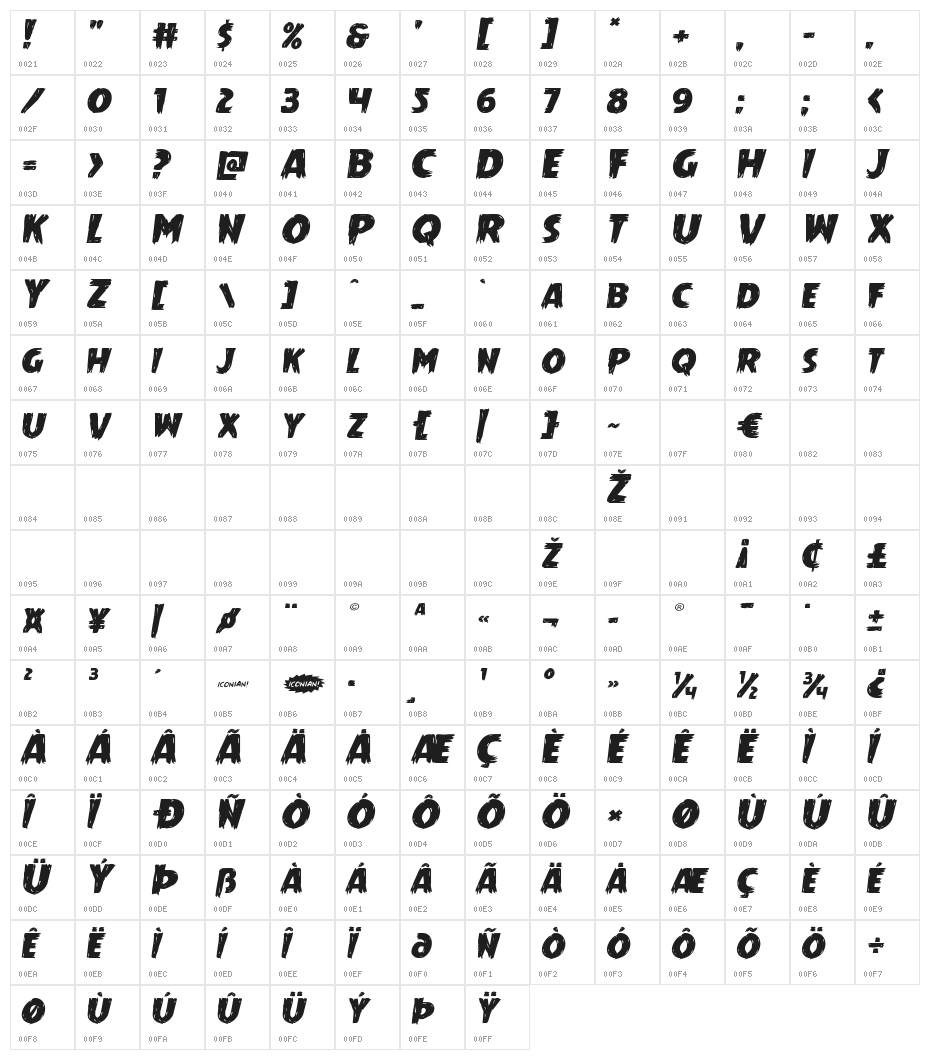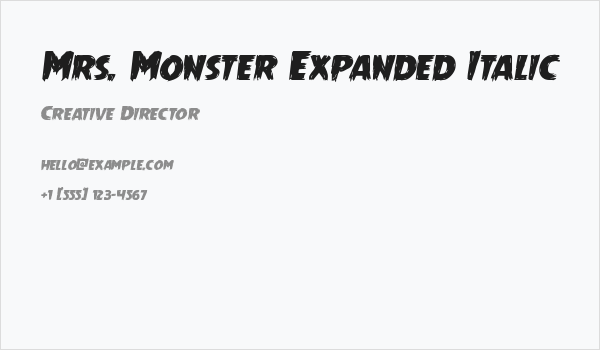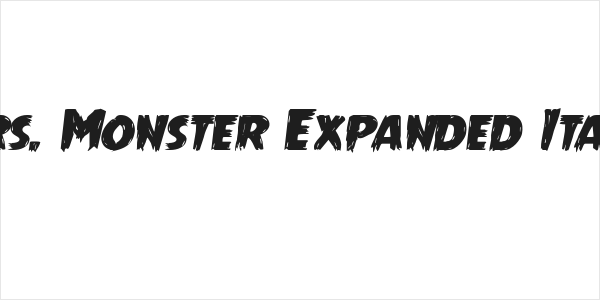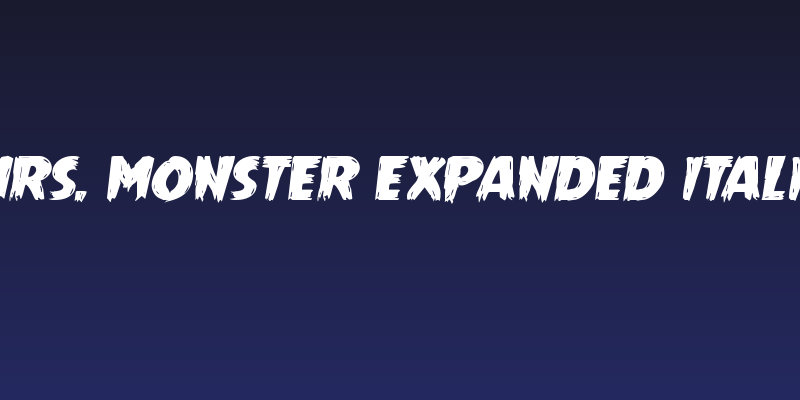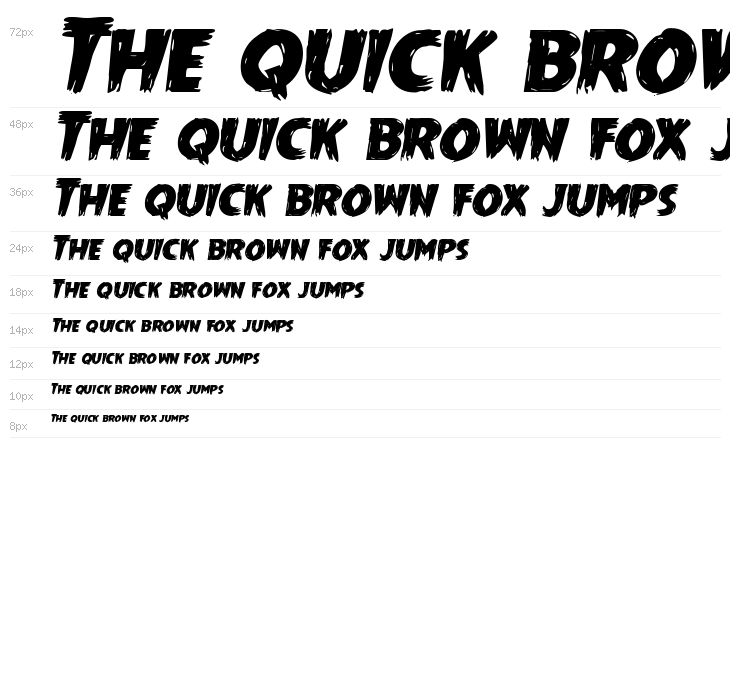
Mrs. Monster Expanded Italic Font
Mrs. Monster Expanded Italic Description
This font exhibits a bold and dynamic style with an expanded and italicized form. The characters are designed with a jagged, rough edge, giving them a distressed and energetic appearance. The uppercase and lowercase letters maintain a consistent style, with exaggerated angles and a sense of movement. The numbers and special characters follow the same design principles, ensuring a cohesive look across all elements. This font is particularly eye-catching and is designed to stand out, making it suitable for projects that require a strong visual impact.
| Proposed Projects | Ideal for horror-themed posters, Halloween invitations, edgy branding, and video game graphics. |